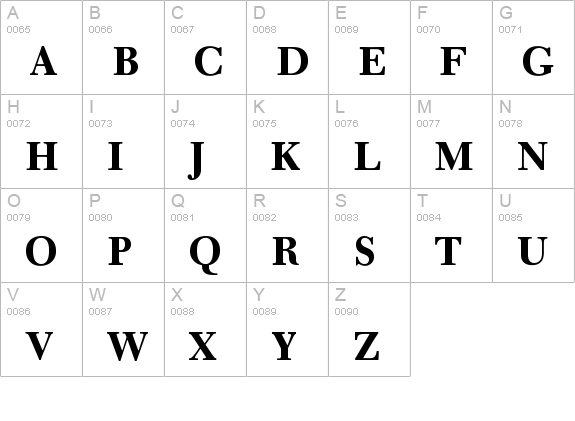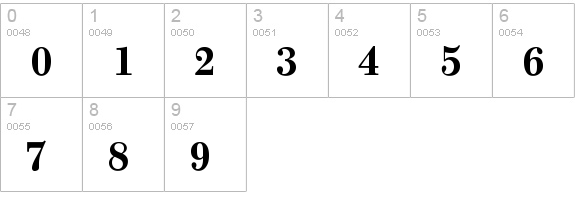
Caledonia* Bold Font Details
Caledonia* Bold is a strong, high-contrast variant in the Caledonia* typeface family \xE2\x80\x94 well suited to headlines, attention-grabbing titles, and strong calls-to-action.
Caledonia Bold font is a striking and versatile typeface that exudes confidence and sophistication. Its bold and sturdy letterforms make a strong statement, perfect for headlines, titles, and branding projects. With its classic yet modern design, Caledonia Bold is sure to make a lasting impression. What makes Caledonia Bold even more appealing is that it is available for free download at FontsMarket.com. This means that you can easily access this high-quality font without any cost, making it a valuable addition to your font collection. Don't miss out on the opportunity to enhance your designs with the timeless elegance of Caledonia Bold. Download it for free today at FontsMarket.com!